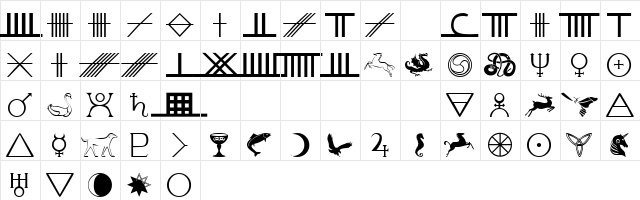
101! Celtic Astrologer Regular Font Preview
101! Celtic Astrologer Regular
Design Context for 101! Celtic Astrologer Typeface
101! Celtic Astrologer is a composed and adaptable typeface that performs quietly and consistently across a wide range of design contexts.